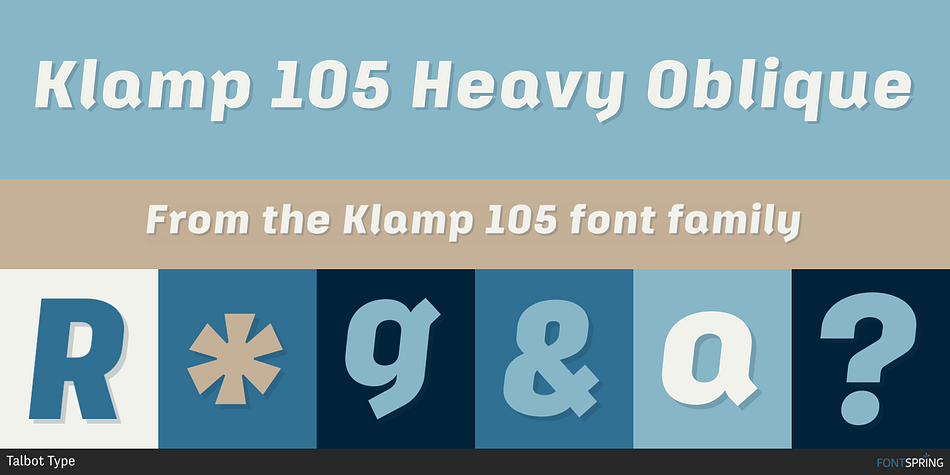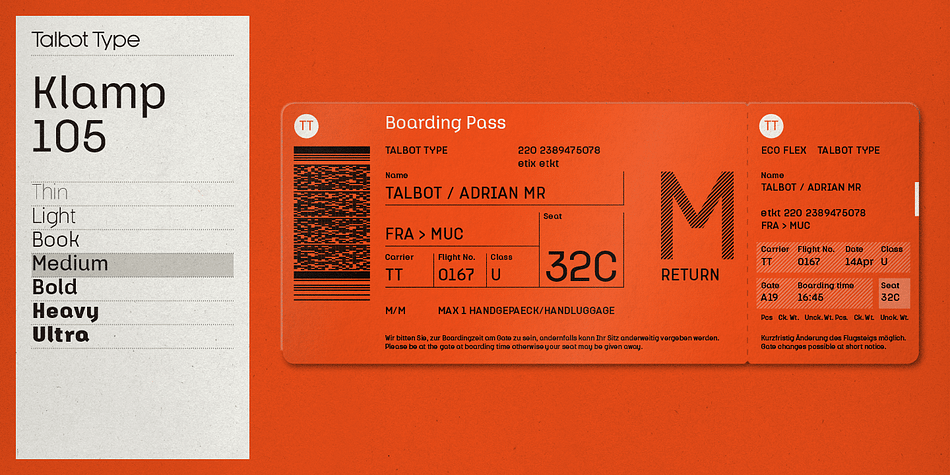
Klamp 105 Heavy Oblique
Designed by Adrian Talbot, Klamp 105 is a sans serif font family. This typeface has fourteen styles and was published by Talbot Type.
Talbot Type Klamp 105 is an elegant and streamlined, geometric sans-serif. A legible text font, its narrow proportions mean it’s economical with space; while at larger sizes it makes a confident, modern display face.
Klamp 105 is available in a comprehensive family of seven weights, featuring an extended character set to include old style numerals, as well as accented characters for Central European languages. It is also available with some character variations as Klamp 205, most notably featuring a traditional, double-storey lower case a and g.